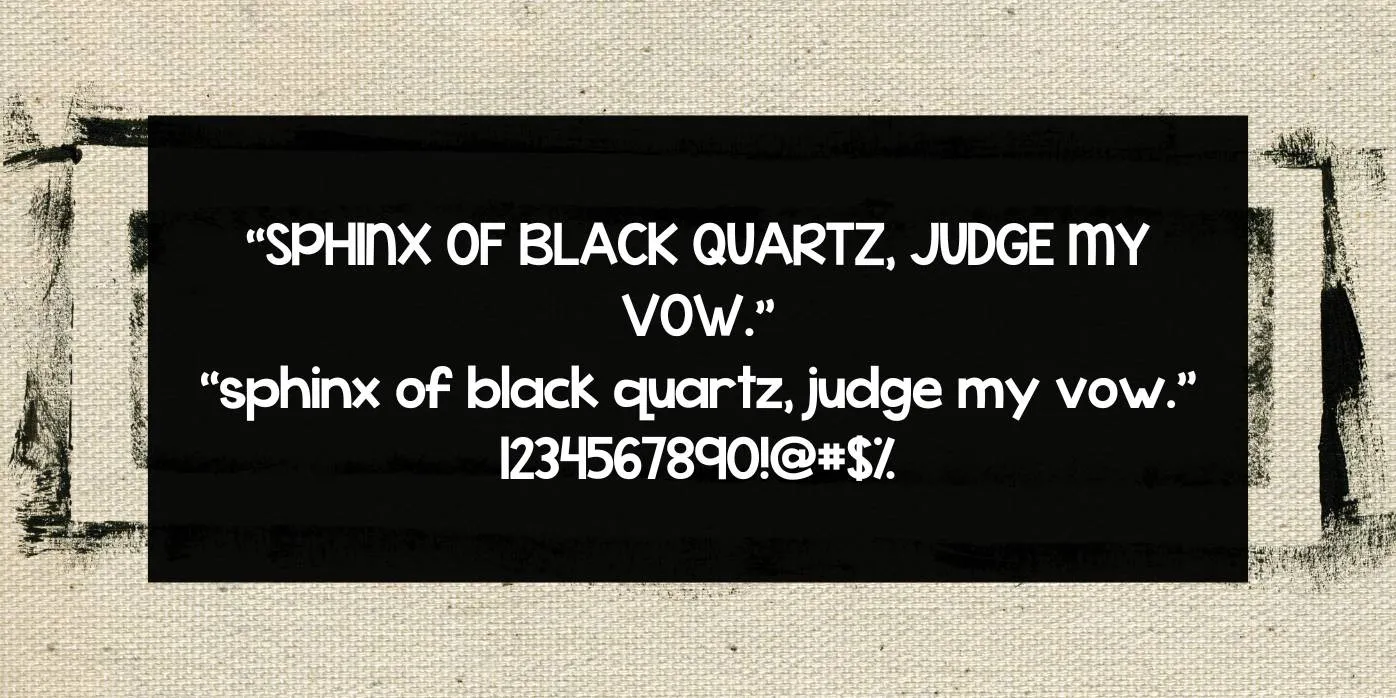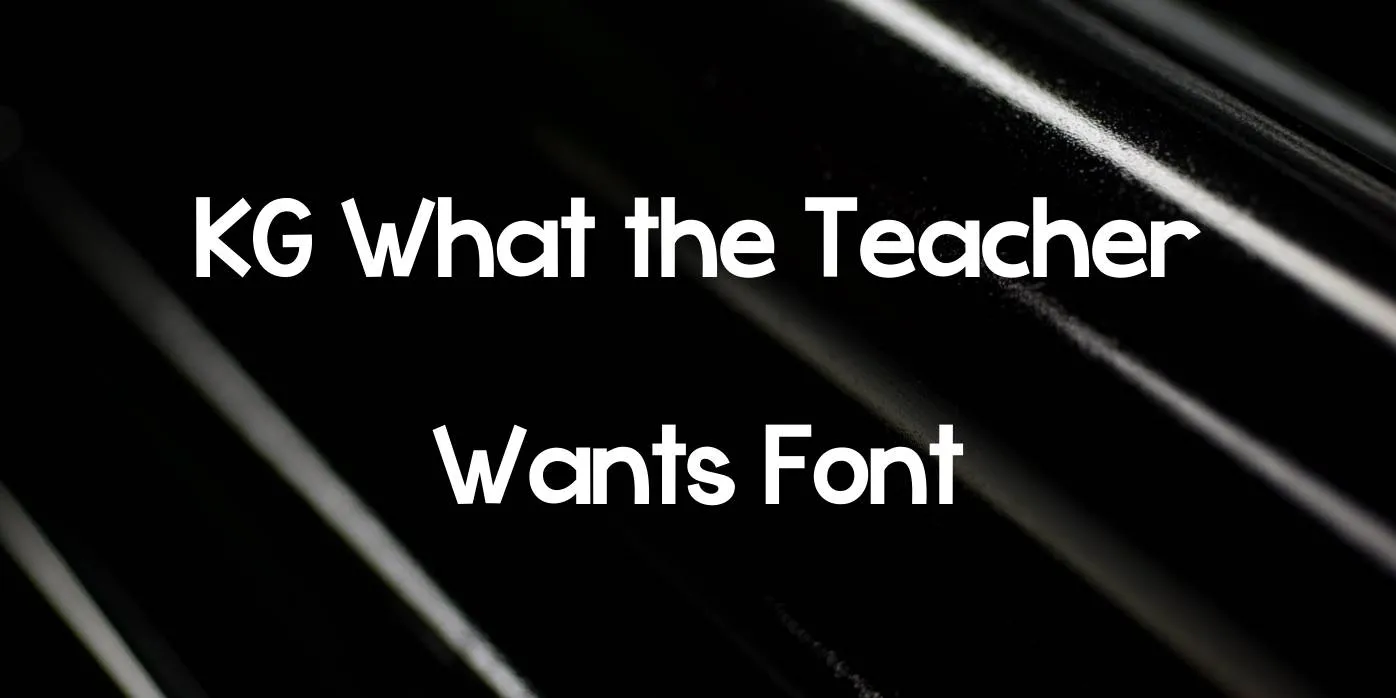
KG What the Teacher Wants Font
Now we talk about another amazing font KG What the Teacher Wants Fonts. This stunning font is specially designed for an elementary teacher Rachelle Smith. This friendly font was designed by Kimberly Geswein. It is a very neat font and has so many different features.
It contains 419 characters, 407 gl,yphs, and 1024 units per Em. The weight of the font is Semi-bold and its width is medium (normal). Unicode supported 2.0 and BMP only. The embedding rights area allowed the permanent installation of this font.  You can use this font in many projects.
You can also use it for pairing with other fonts like florid font to give a more attractive and interesting look to your projects. It has only one regular weight but it has been downloaded more than 1 million times till now. Usage So many different projects can be made by using this font. It has characters, numbers, small letters, capital letters, punctuations, and special characters.
This stunning typeface is a very nice font to delivers messages to the students from elementary teachers. This font is a very friendly font. It supports more than 86 languages. You can make attractive headlines by using this font.
Social media posts can be used for advertisements of different brands. Brochures and attractive invitation cards can made by using this font. It is a good font for making banners, posters, and flyers. This stunning typeface is considered a very suitable font for both print and digital media.
Kurdish, Kurdish (Kurmanji FAQs! For what purpose KG What the Teacher Wants font made? It was created for elementary Teacher Rachelle Smith. It is a very neat and clean font and can be used to give a clear message to all students from their elementary teachers.
Who is the designer of the KG What the Teacher Wants font? This stunning and unique font was designed by Kimberly Geswien. You can use it for making so many different projects. Can I use KG What the Teacher Wants font for posters?
Yes, it has a high readability and can be used to design many attractive designs. On posters, banners, and flyers you can use it as well. Is KG What the Teacher Wants a Good Font? This is a very neat font and can be used to make so many different projects.
It is also a good source for conveying messages between students and teachers.